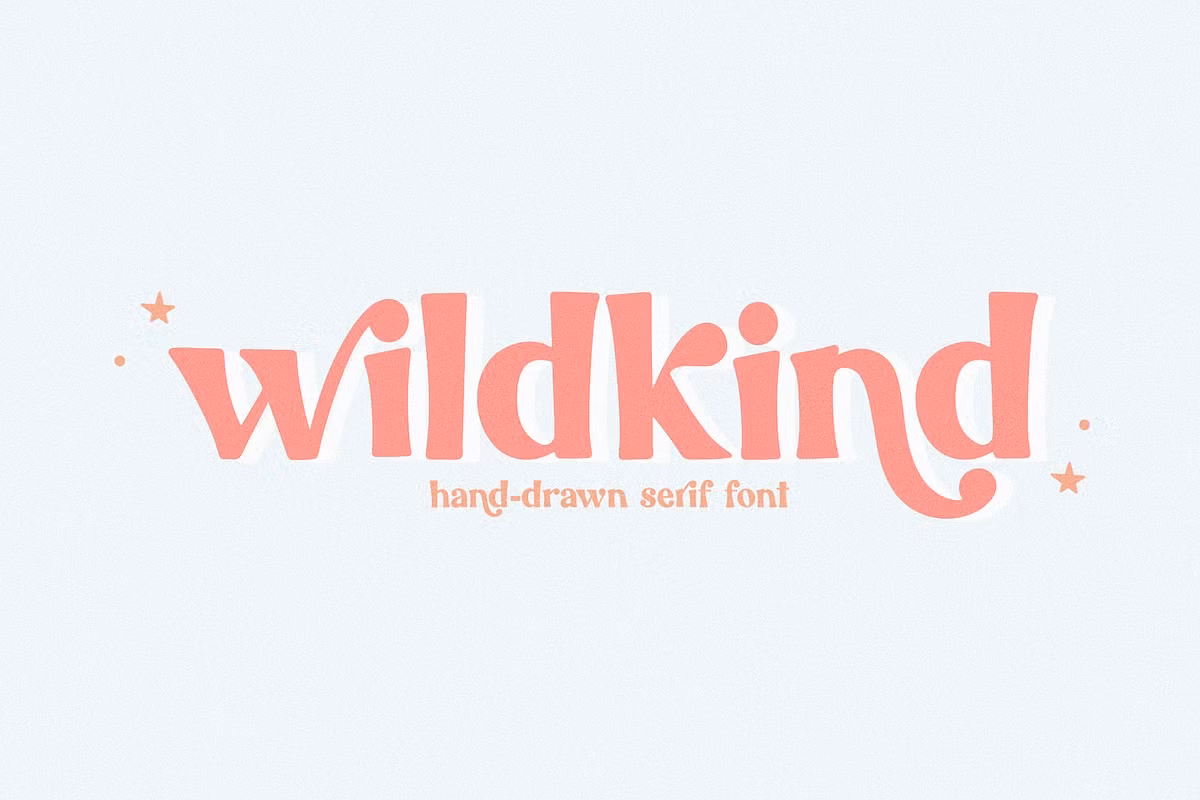
Wildkind – Boho Serif Font Free Download is a trendy and stylish serif typeface with a unique bohemian flair. Featuring organic curves, playful details, and a relaxed aesthetic, this font is perfect for boho-inspired designs, creative branding, lifestyle blogs, event invitations, and nature-themed projects.
Wildkind – Boho Serif Font Free Download blends modern serif elements with an earthy, artistic style, making it ideal for designs that need a touch of whimsy and free-spirited elegance.